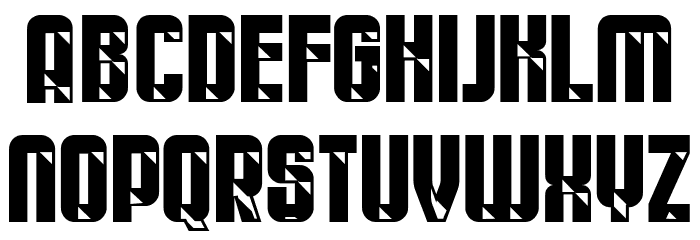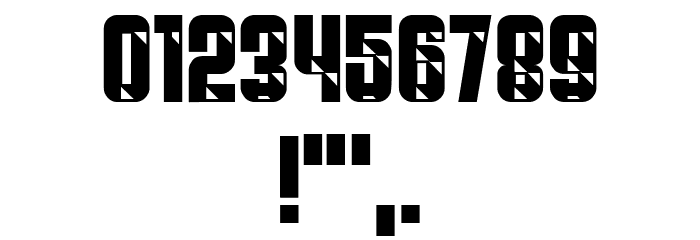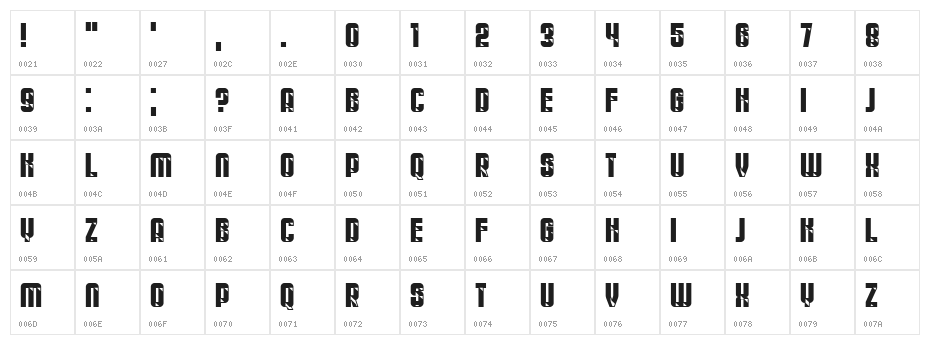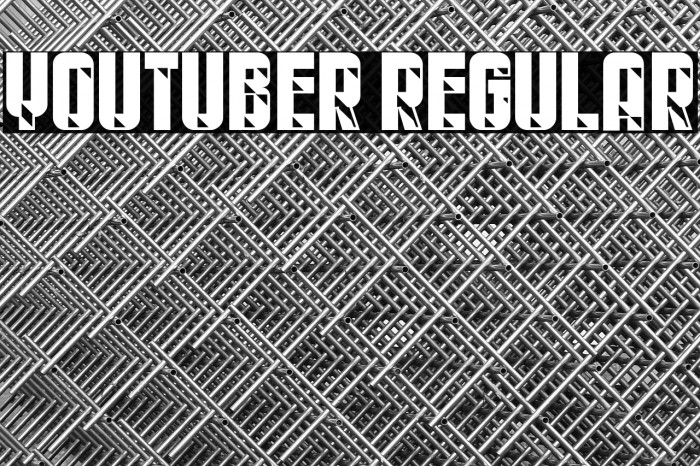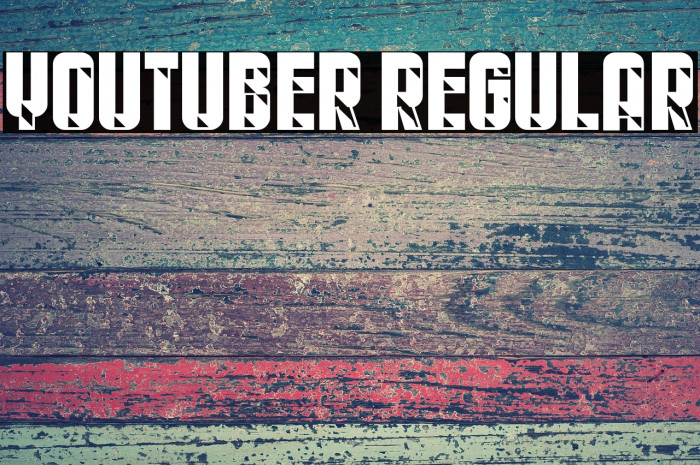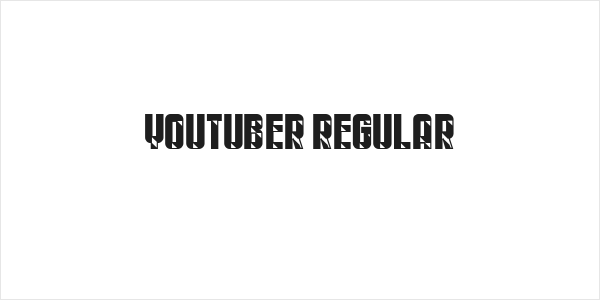
Youtuber Regular Font
This font features a bold, geometric design with a modern and edgy aesthetic. The characters are constructed with thick, block-like shapes that incorporate sharp angles and cut-out sections, creating a dynamic and visually striking appearance. The uppercase letters are uniform in height, while the numbers and special characters maintain the same bold style, ensuring consistency across all elements. The font's unique design elements make it stand out, offering a futuristic and industrial feel that is both eye-catching and memorable.
A bold, geometric font with sharp angles and cut-out sections, offering a modern and edgy look.
- Proposed Projects: Ideal for branding, posters, and digital media projects that require a strong, modern visual impact.